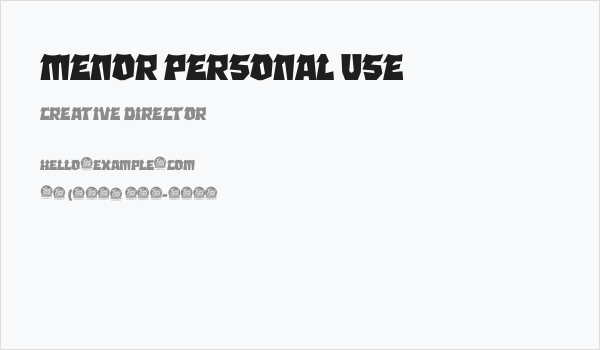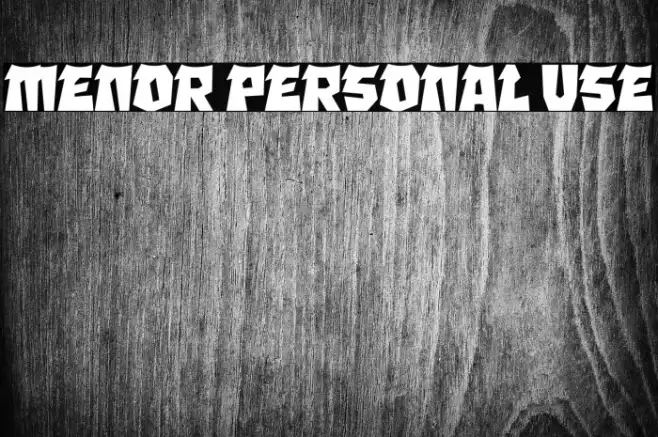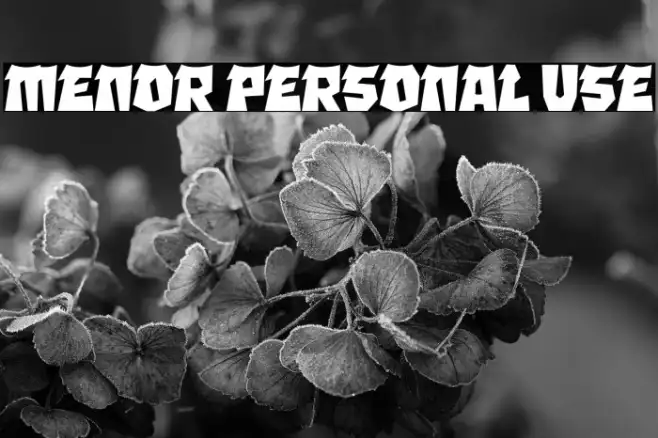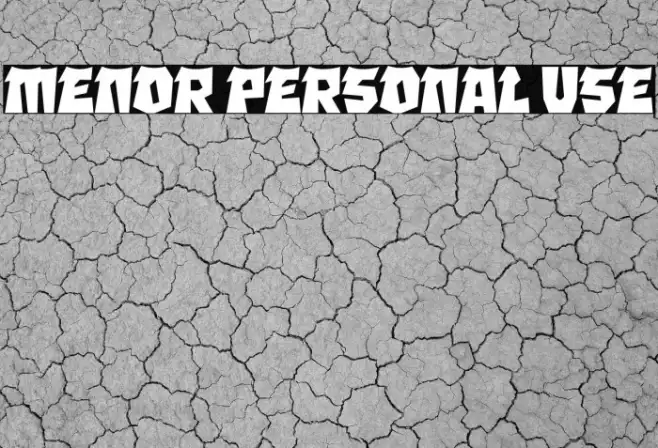
MENOR Personal Use Font
MENOR Personal Use Description
This font features a bold and angular design, characterized by sharp edges and a dynamic, geometric style. The letters are heavily stylized, with a strong emphasis on diagonal lines and pointed corners, giving it a striking and modern appearance. The uppercase and lowercase letters maintain a consistent aesthetic, with a unique flair that makes each character stand out. The numbers and special characters follow the same design principles, ensuring a cohesive look across all elements. This font is ideal for projects that require a bold and impactful visual statement.
| Proposed Projects | Ideal for posters, logos, branding, and any project needing a bold visual impact. |